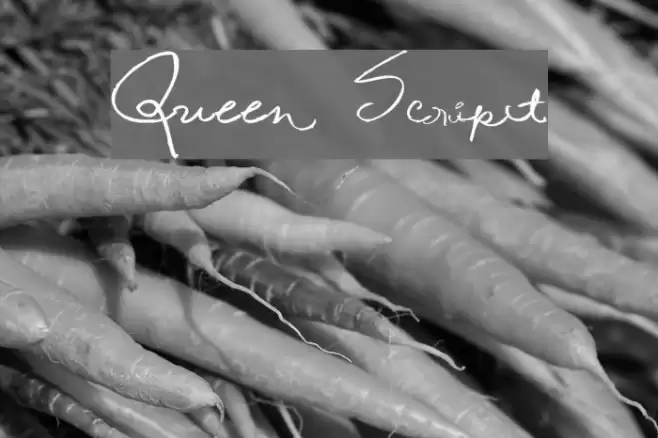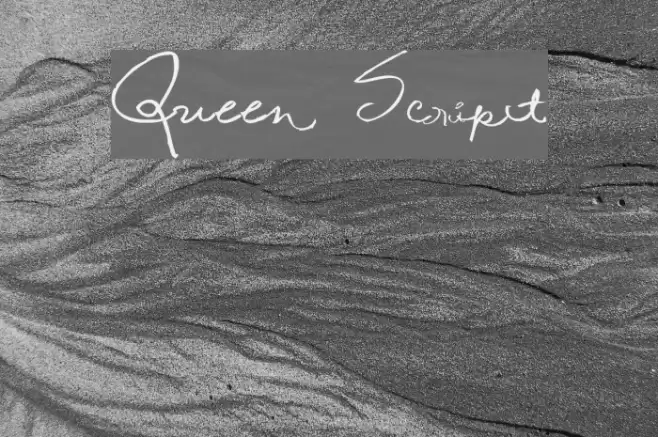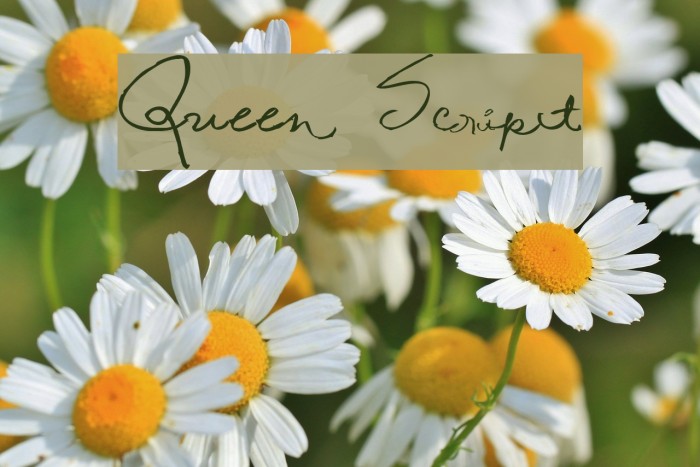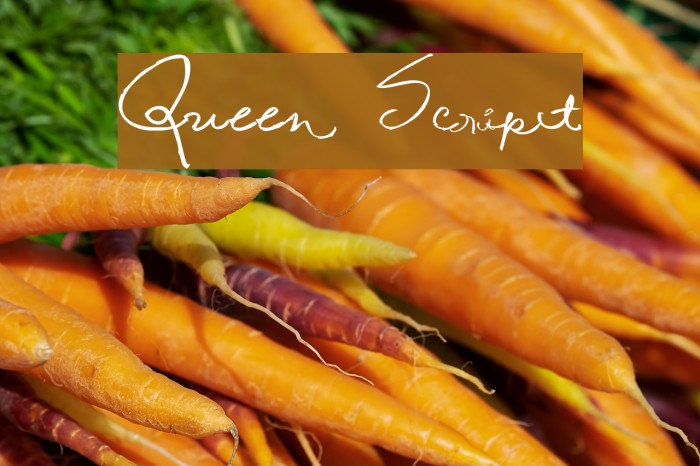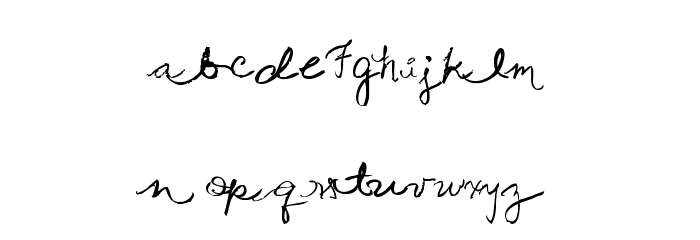
Queen Script Font
Queen Script Description
This elegant script font features a flowing, cursive style with a hand-drawn appearance. The uppercase letters are tall and graceful, with sweeping curves and delicate lines that give a sense of movement and fluidity. The lowercase letters maintain this fluidity, with some letters connecting seamlessly to the next, enhancing the handwritten feel. The font has a whimsical and artistic quality, making it suitable for creative and expressive projects. The strokes vary in thickness, providing a medium contrast that adds to its dynamic look. The overall style is both classic and modern, making it versatile for various design needs.
A flowing, cursive script font with a hand-drawn, elegant style from Uncategorized fonts.
- Proposed Projects: Ideal for wedding invitations, greeting cards, personal branding, and artistic projects.
- Overall Style: Classic, Modern
- Use Case: Logos, Invitations, Artistic projects